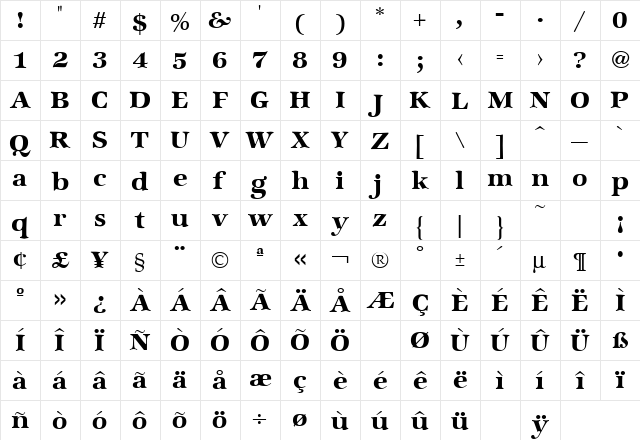
Zapf International Bold
Design Context for Zapf International Typeface
Zapf International offers clean, dependable letterforms without strong stylistic allegiance, making it a practical choice for designers who need flexibility. The heavy weight commands attention and anchors typographic hierarchies.